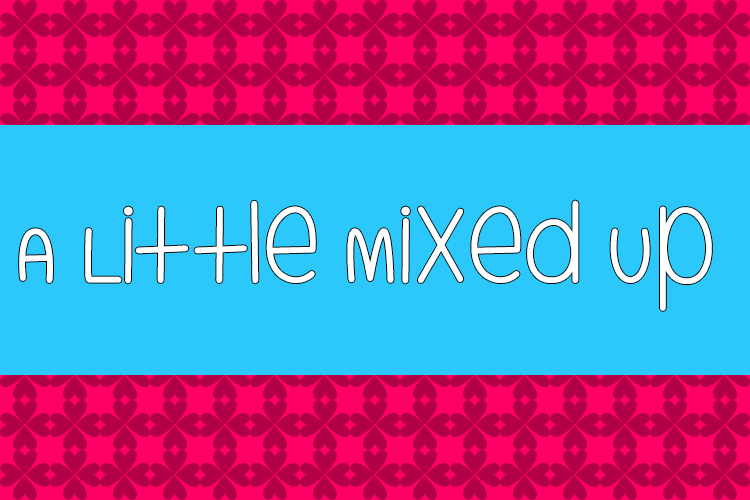
A Little Mixed Up
Are you looking for a whimsical and playful font for your next design project? Look no further than A Little Mixed Up! This handwritten font, designed by Misti's Fonts, is perfect for adding a touch of charm and personality to your crafts, invitations, or social media posts.
With its mix of bold and delicate strokes, A Little Mixed Up is a versatile font that can be used for a variety of applications. Whether you're designing a logo for your business, creating a digital scrapbook page, or simply adding a fun touch to a personal project, this font is sure to delight.